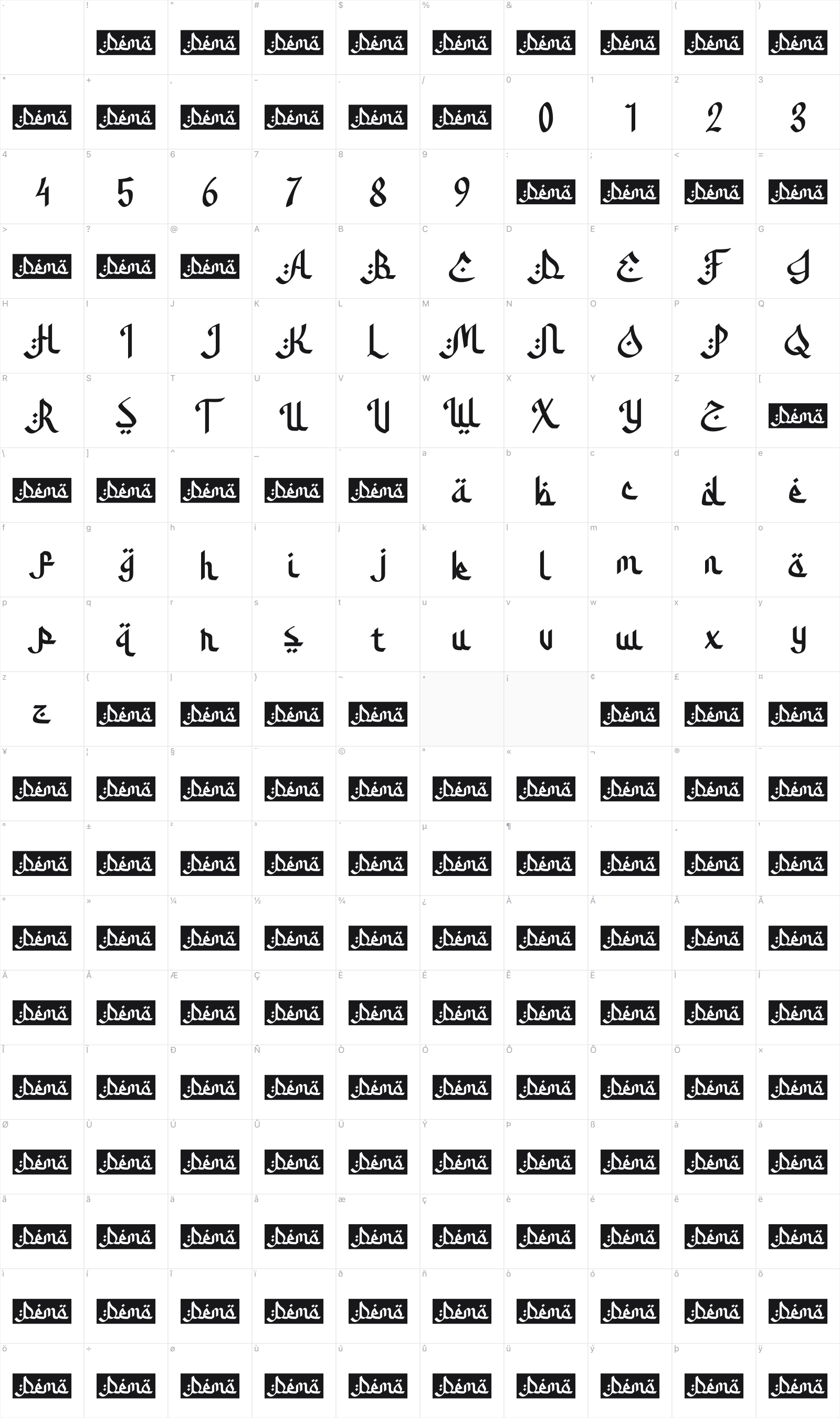
Amazing Ramadhan
Amazing Ramadhan is a Latin display font that wears the visual language of Arabic calligraphy, bending familiar letters into sweeping, connected strokes with decorative dots and sharp angular terminals. The effect is a convincing cultural fusion rather than a superficial pastiche. It suits headline use wherever a Middle Eastern or Islamic celebration theme is called for.